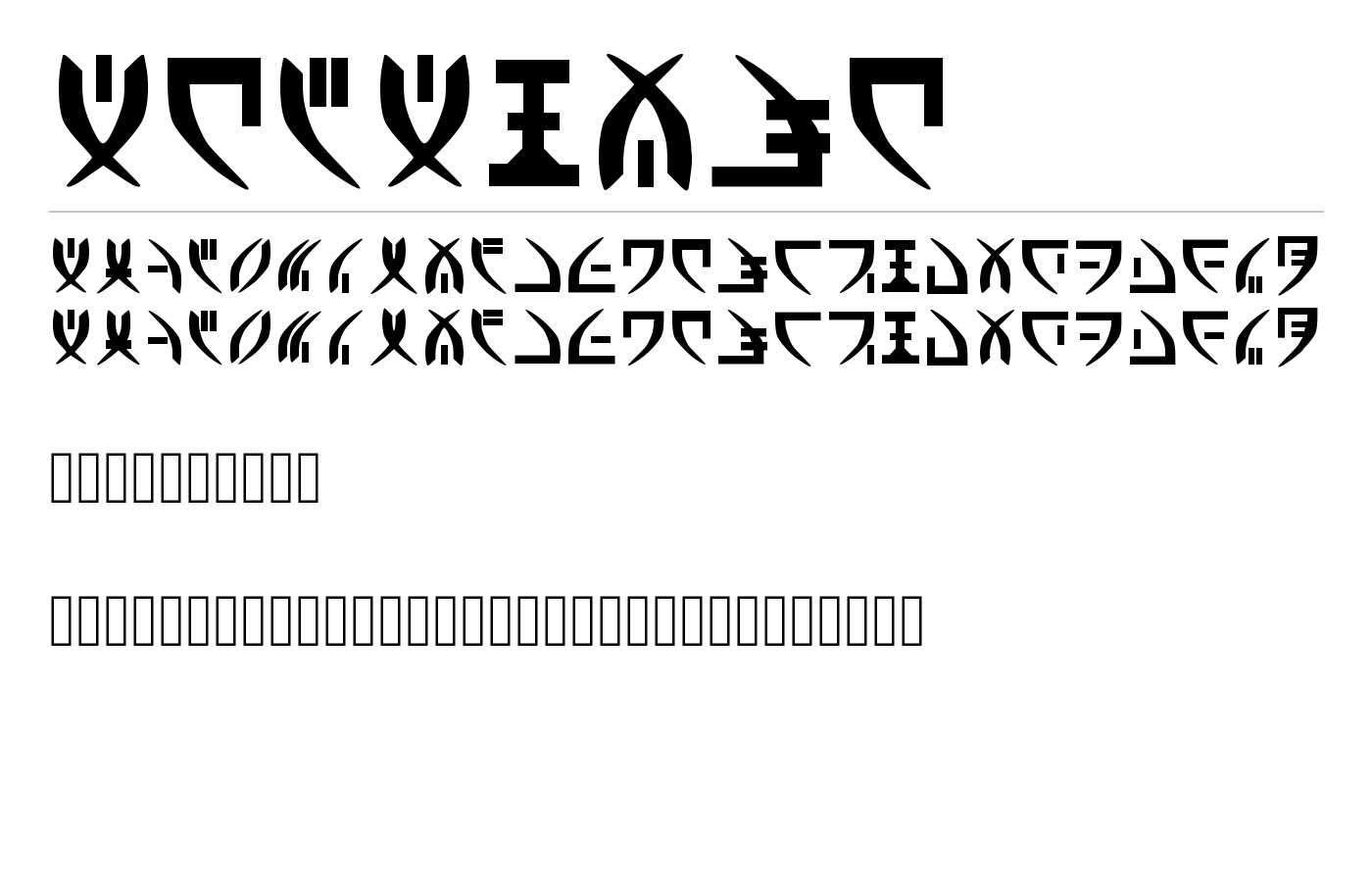
Andarion is a bold, geometric display font featuring strong angular shapes and high contrast between thick and thin strokes, giving it a striking and futuristic appearance. Its unique, decorative letterforms evoke a sense of mystery and advanced technology, making it ideal for sci-fi themed projects, branding, and eye-catching headlines. This font works best where a distinctive, unconventional style is needed to capture attention and convey a modern, dynamic vibe.
Andarion Font
About Andarion Font